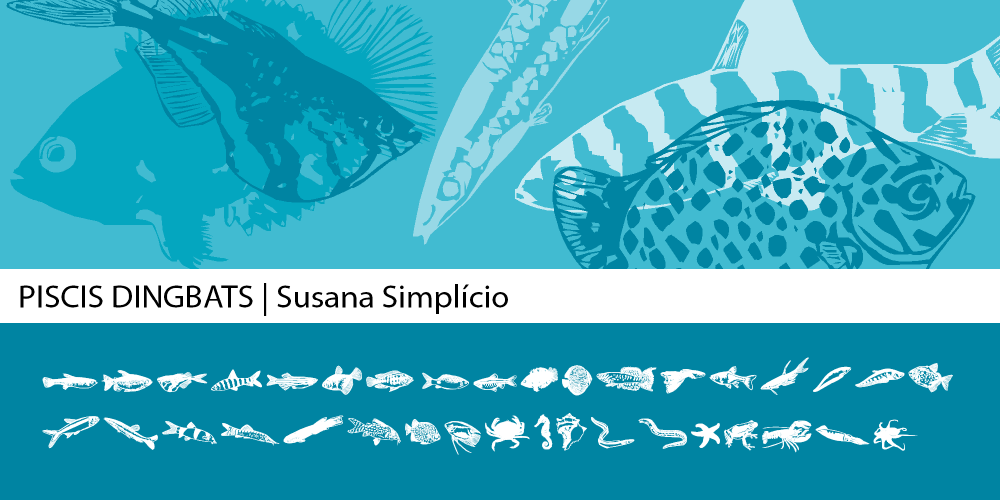
Piscis Font Family was designed by Susana Simplício and published by Susana Simplício. Piscis contains 1 styles and family package options. Piscis Dingbats are inspired by aquaculture and fishkeeping, and its main feature is the detailed drawings enabling a real representation of the fishes. Each Dingbat can be used individually or in the construction of illustrations through the combination of drawings, the limit is the imagination to create a variety of creative possibilities.